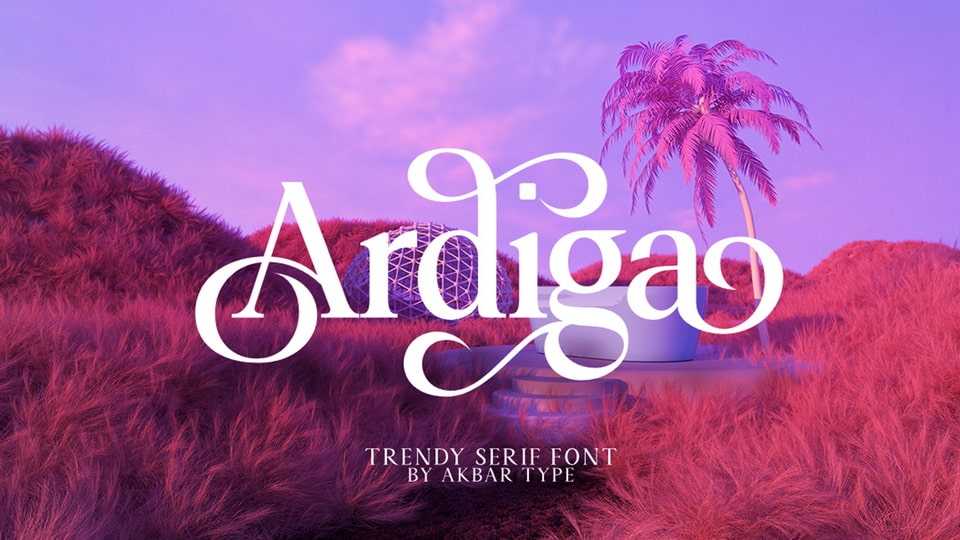
Download Ardiga font, an elegant and unique serif typeface that uses swash and various alternates letters. Ardiga is perfect for adding a unique twist to word-mark logos, monograms, or pull quotes.
Designer: Akbartype